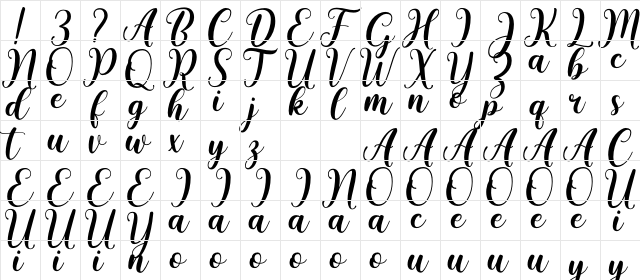
Chintya Demo Font Preview
Chintya Demo
Design Context for Chintya Typeface
Chintya is a composed and adaptable typeface that performs quietly and consistently across a wide range of design contexts.
Pro Tip: Pair Chintya with a font of contrasting weight or personality to build a more expressive typographic hierarchy.